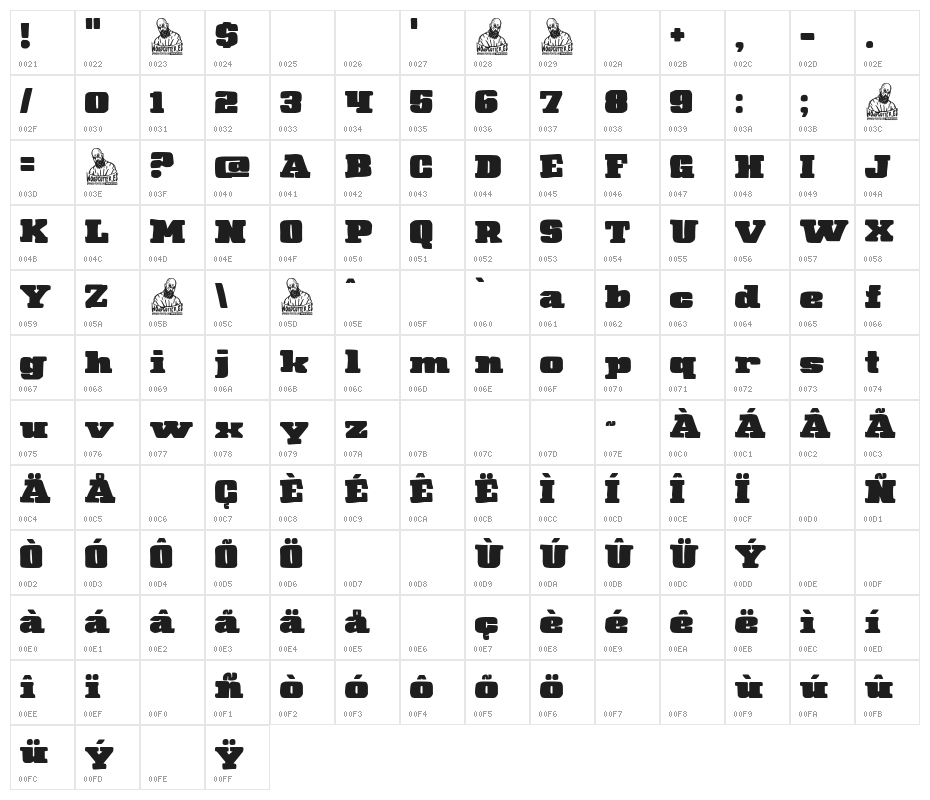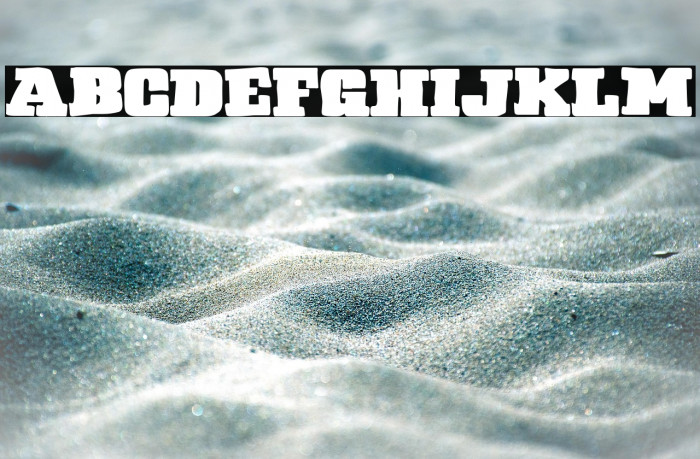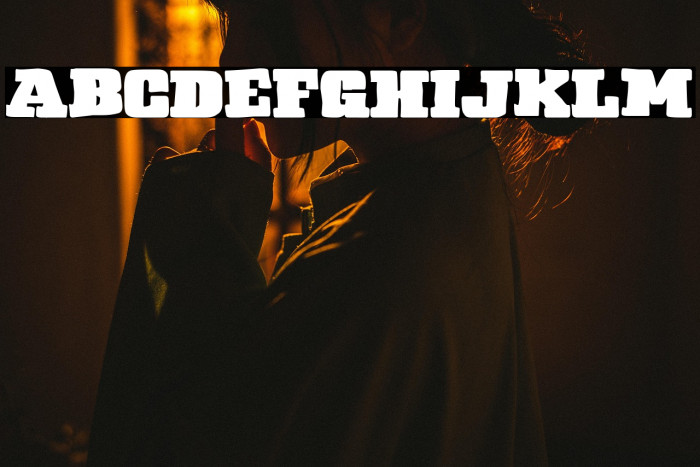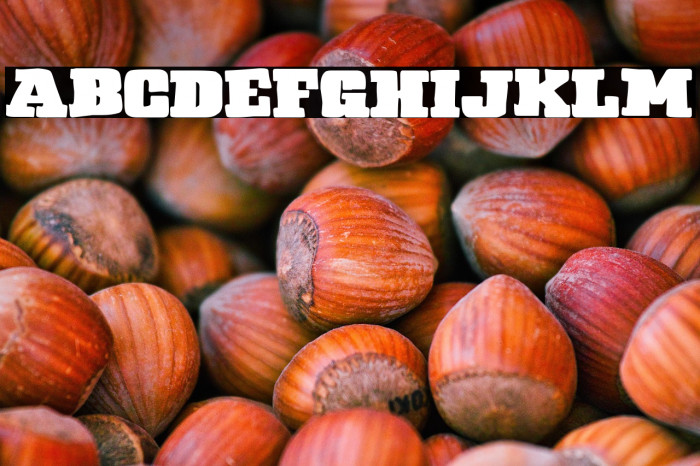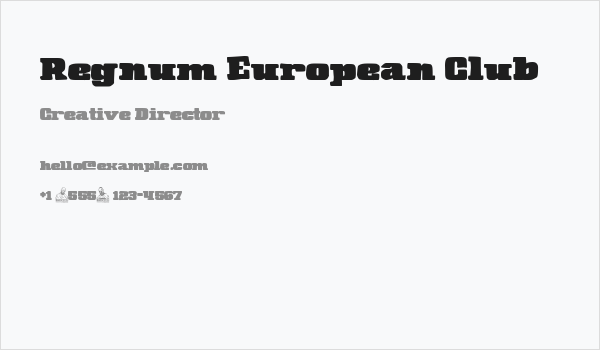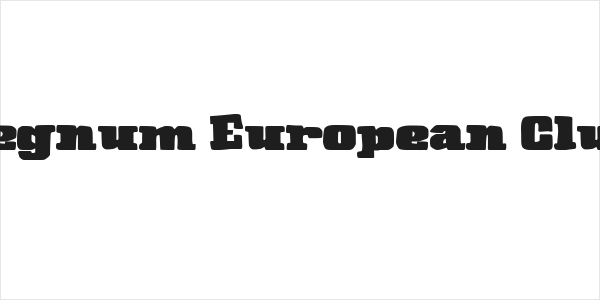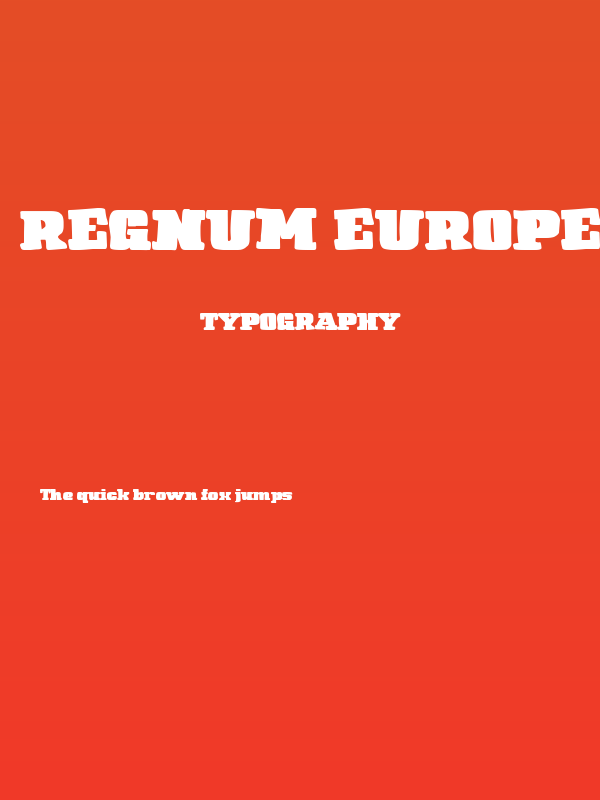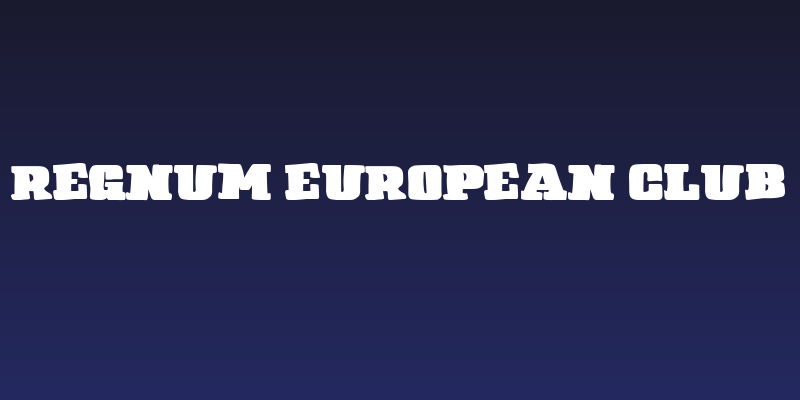
Regnum European Club Font
Regnum European Club Description
This font features a bold and robust design with thick, block-like characters that convey strength and stability. The uppercase letters are particularly striking, with a strong presence that makes them ideal for headlines and attention-grabbing text. The lowercase letters maintain the same boldness, ensuring consistency across different text sizes. Numbers and special characters are equally bold, making them suitable for a variety of uses. The font's overall style is reminiscent of vintage or retro designs, with a touch of modern flair. Its heavy weight and wide character spacing give it a commanding appearance, perfect for projects that require a strong visual impact.
| Proposed Projects | Ideal for posters, logos, branding, and any project needing a strong, bold typeface. |